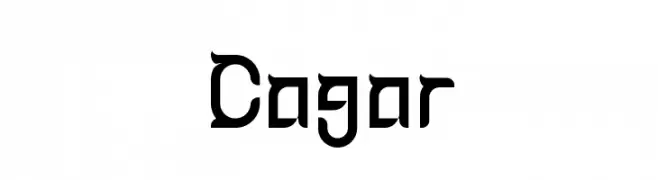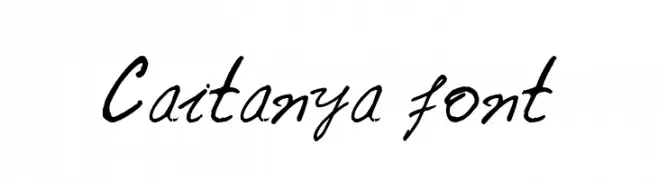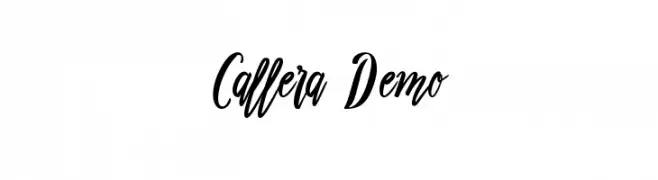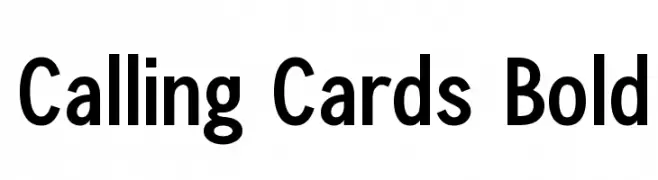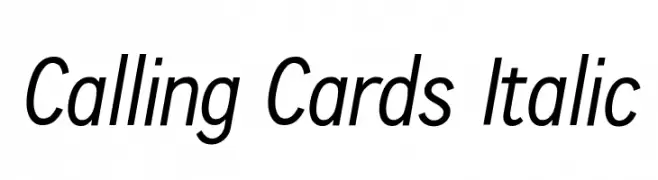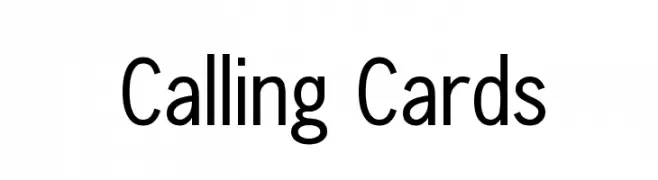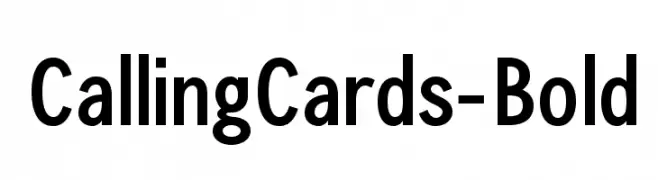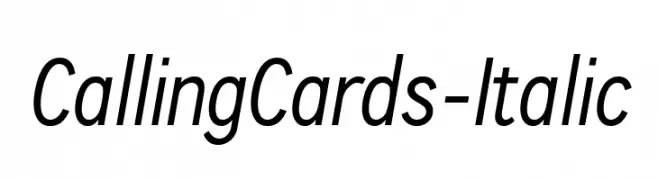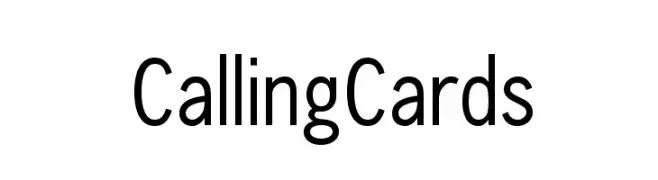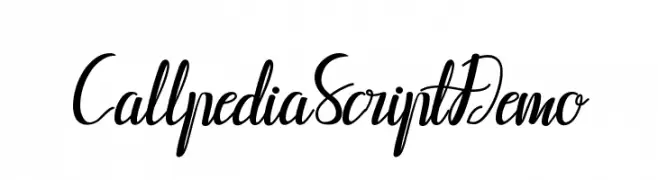
( Arterfak Project - Ahmad Ramzi Fahruddin - creativemarket.com/Arterfak )
A modern, geometric font with bold, sharp edges and a futuristic style.
( Bhavesh Shaha )
A dynamic, cursive handwritten font with fluid strokes and a slanted style.
( Angga Mahardika - creativemarket.com/amtypes )
A dynamic and elegant script font with fluid, cursive strokes.
( Ana - www.anasfonts.com/ )
A clean, modern sans-serif font with balanced proportions and high legibility.
( Ana - www.anasfonts.com/ )
A bold, modern sans-serif font with clean lines and uniform strokes.
( Ana - www.anasfonts.com/ )
A sleek, modern italic font with medium contrast and elegant slant.
( Ana - www.anasfonts.com/ )
A modern, clean sans-serif font with consistent stroke width and excellent readability.
( Ana - www.anasfonts.com/ )
A bold, modern sans-serif font with clean lines and excellent readability.
( Ana - www.anasfonts.com/ )
A modern, italicized font with clean lines and balanced proportions.
( Apon Bahrainy - creativemarket.com/stipline.id )
A dynamic and elegant script font with flowing, cursive design.